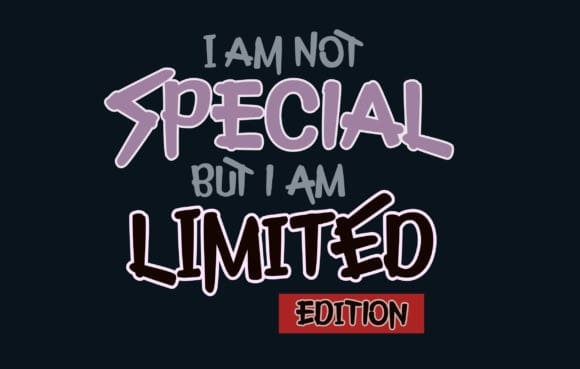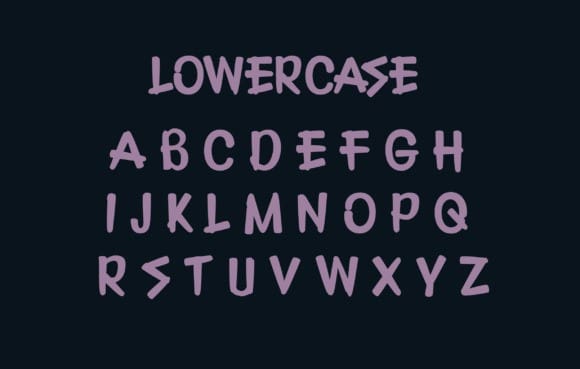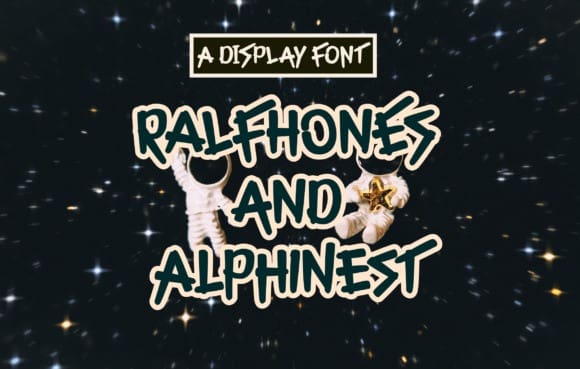
Ralfhones Display Font
Ralfhones Display Font, is a fun, jolly, and incredibly charming display font. It embodies playfulness and authenticity and is the perfect choice for any children’s activity or school project